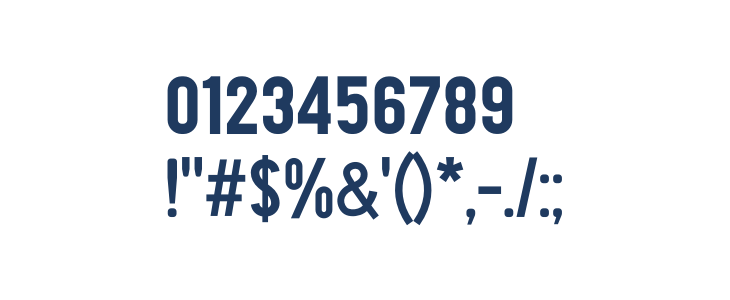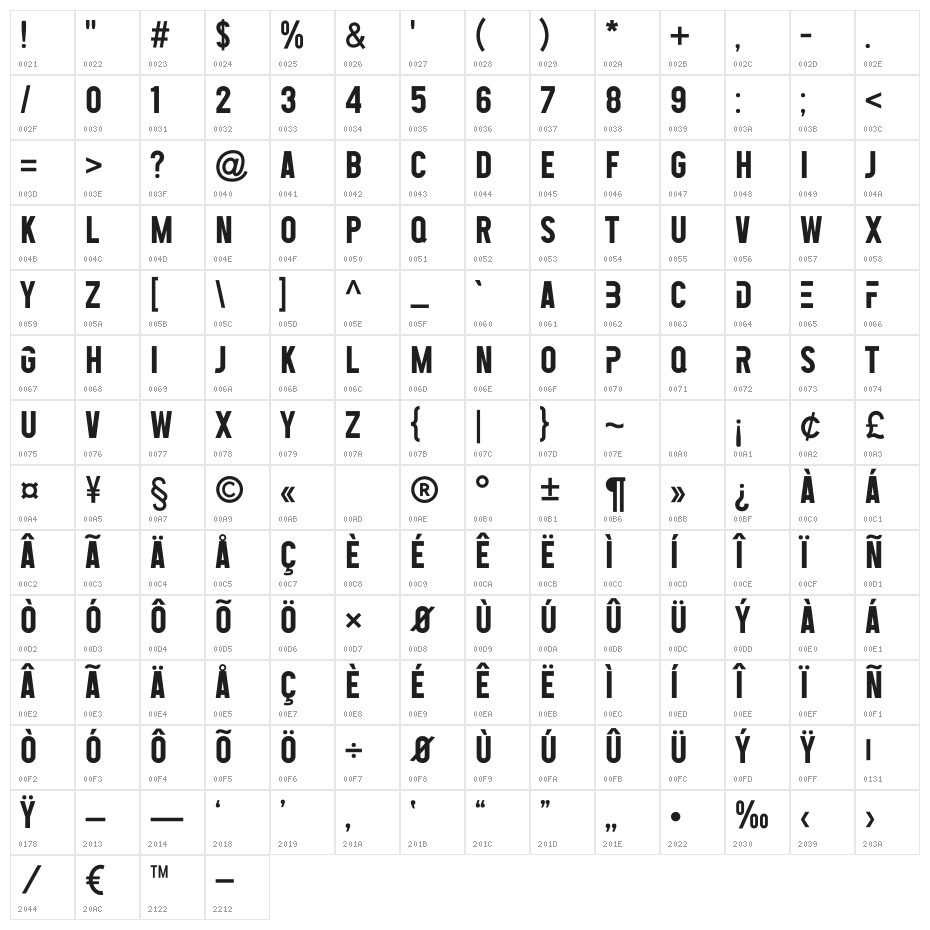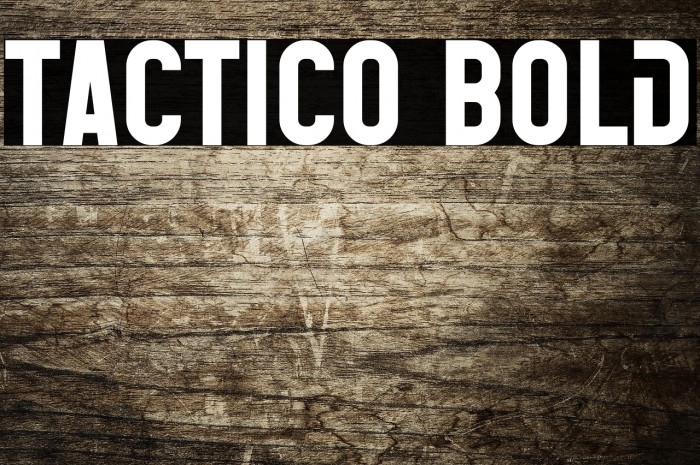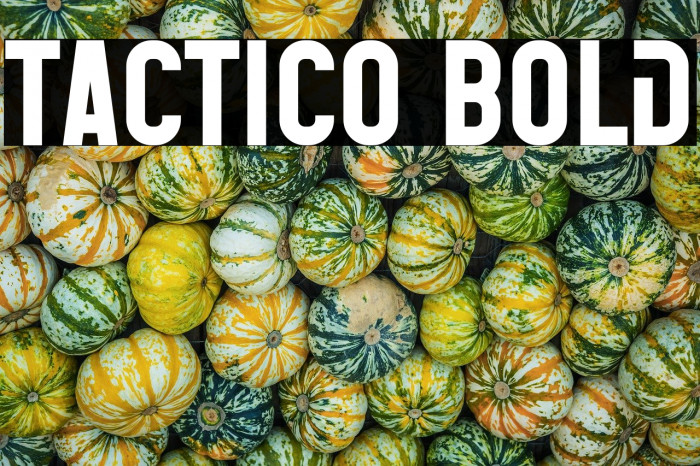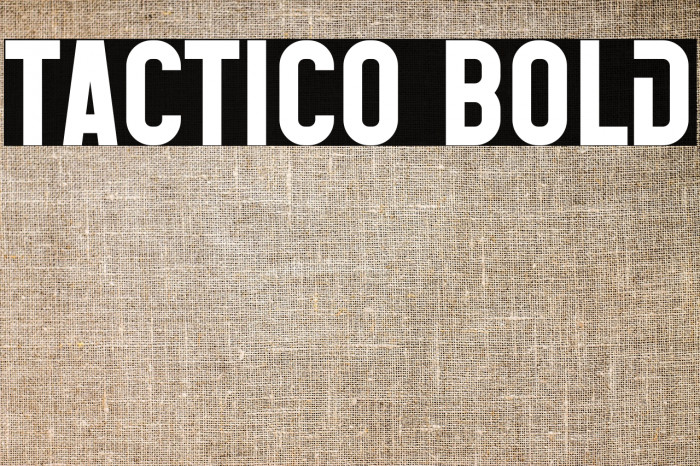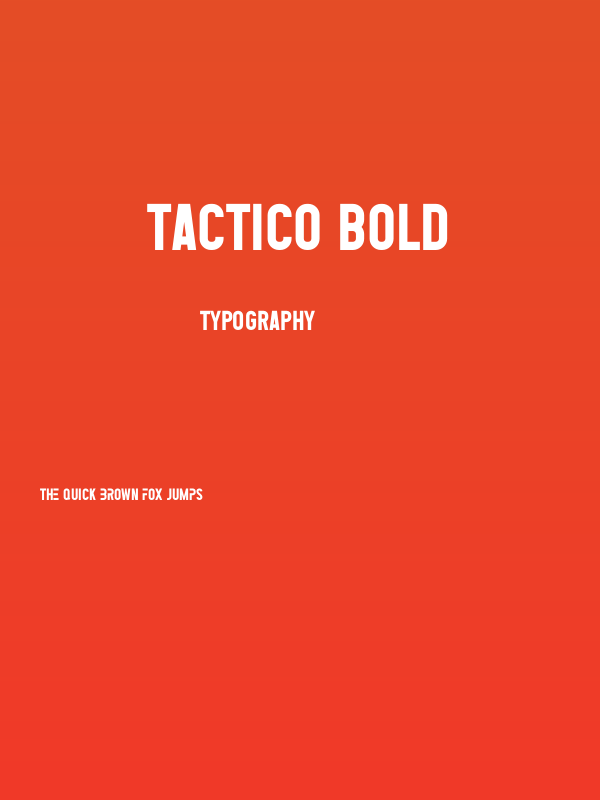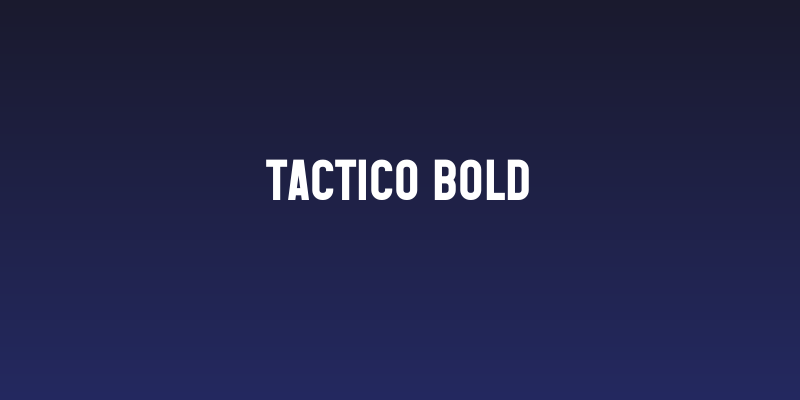
Tactico Bold Font
Tactico Bold Description
This font exhibits a bold and assertive style, characterized by its thick, uniform strokes and geometric structure. The uppercase letters are particularly striking, with a strong presence that commands attention. The numerals and special characters maintain the same boldness, ensuring consistency across all glyphs. The design is clean and modern, making it suitable for a variety of applications where impact is essential. The spacing between characters is tight, enhancing the compact and robust appearance of the text.
| Proposed Projects | Ideal for headlines, posters, branding materials, and any project requiring a bold statement. |